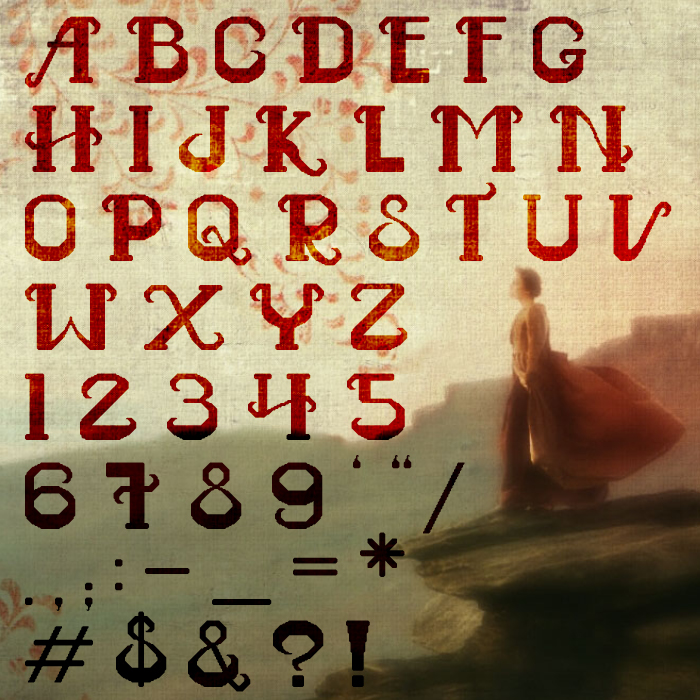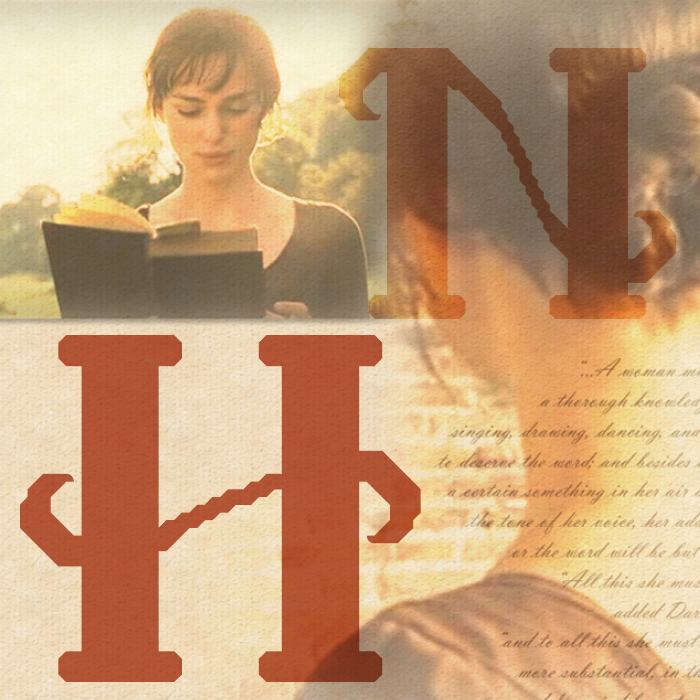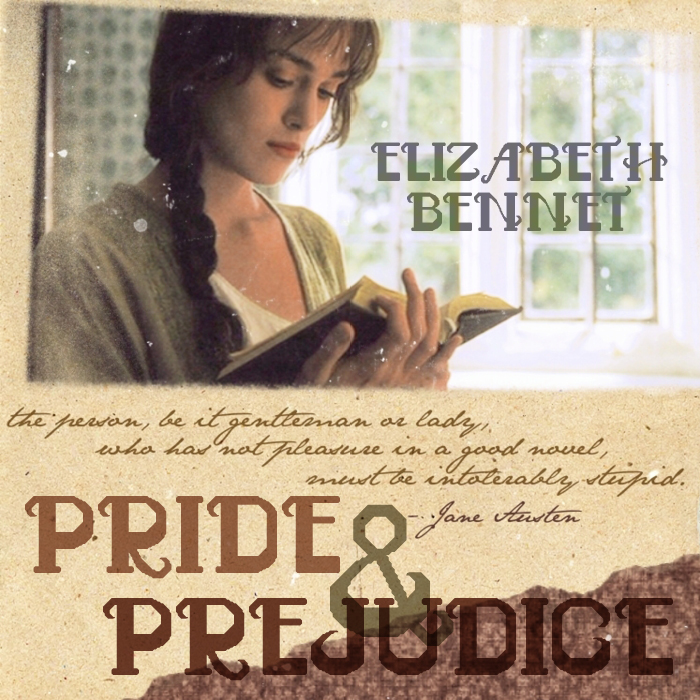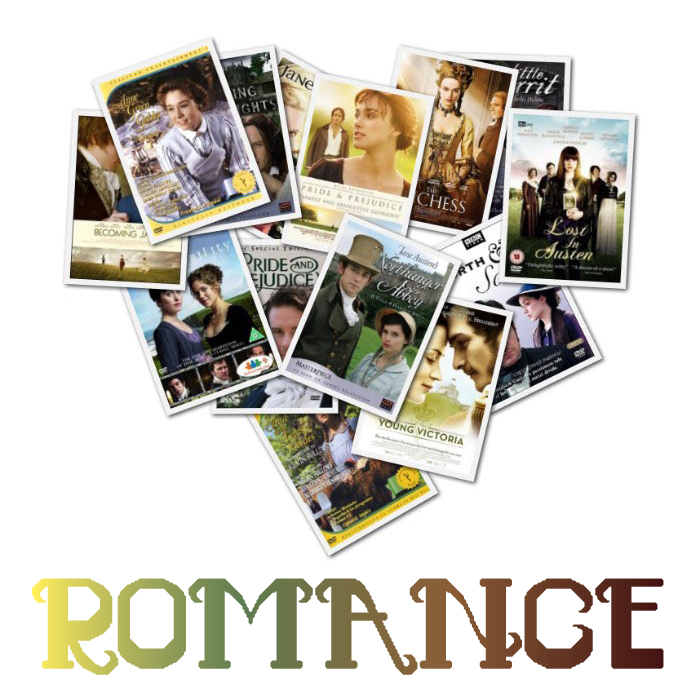
• The AMORA font has a distinct visual style. It has a clean, geometric construction, made with modular shapes, suggesting a modern and structured design. With solid strokes and uneven weight distribution, AMORA conveys a bold and confident look, making it great for headlines and branding. Depending on the character, it may have sharp angular forms for a futuristic feel or slightly rounded strokes for a softer touch. The simplicity of the design makes it suitable for modern, digital, and branding applications. The letters are decorative and have unique features.
AMORA is best suited for display text, it has elongated, stylized letterforms with a decorative touch; it could resemble fonts inspired by 1920s Art Deco, like Broadway or ITC Kabel, giving it a vintage yet sophisticated feel. It features contrasting thick and thin strokes and some rounded edges, making it friendly and approachable.